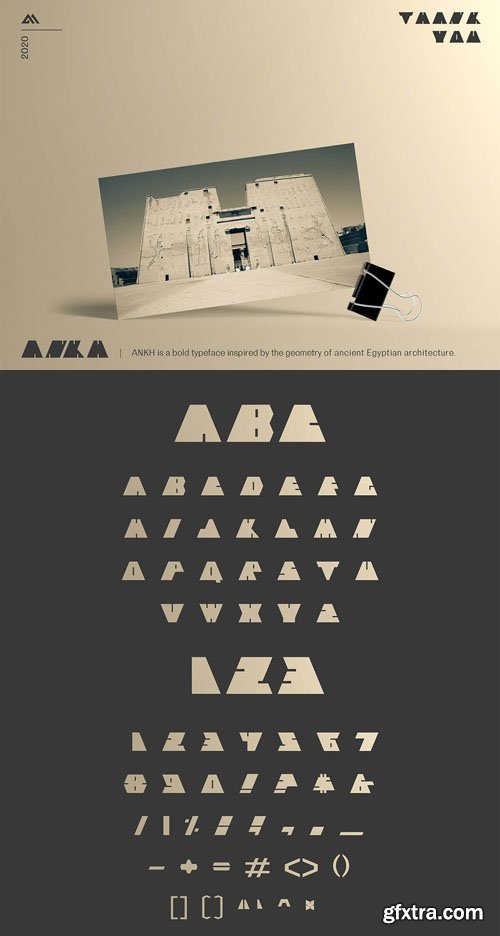
CF - Ankh - Decorative Bold Typeface 2xOTF 080820
Ankh is a bold typeface inspired by the geometry of ancient Egypt
in architecture specially Edfu Temple.